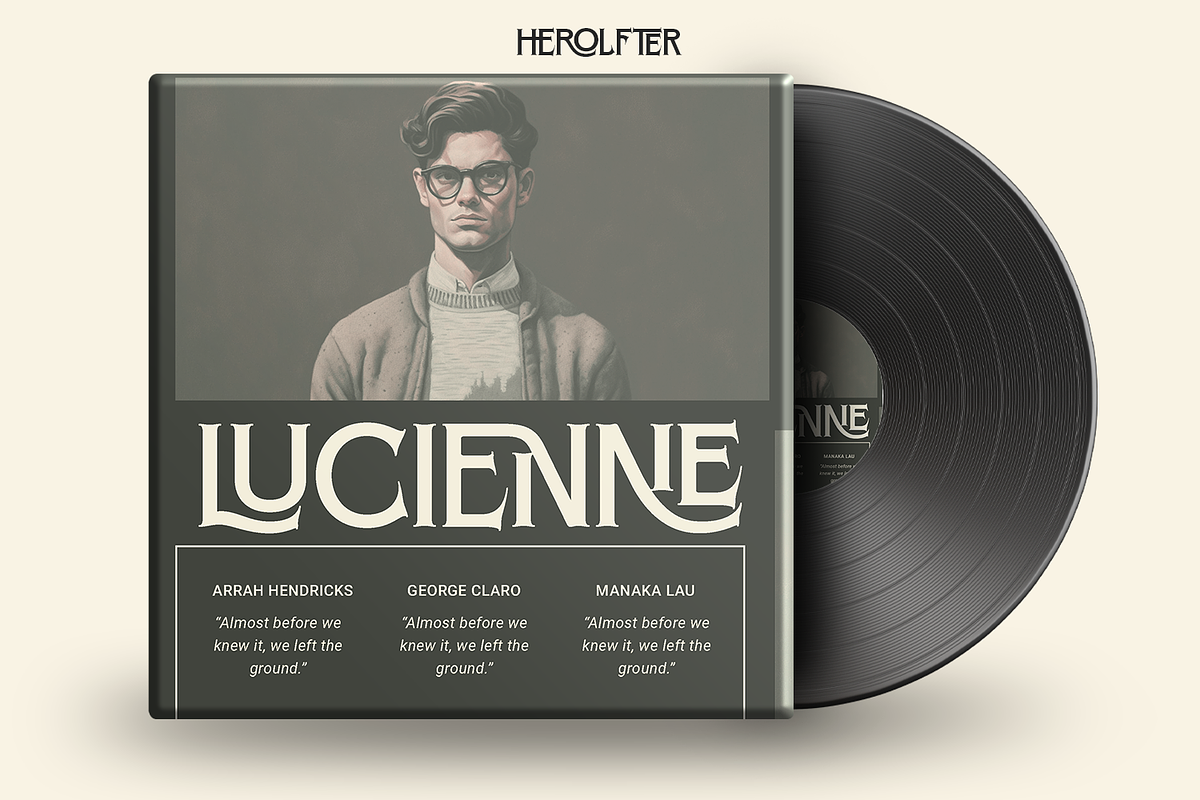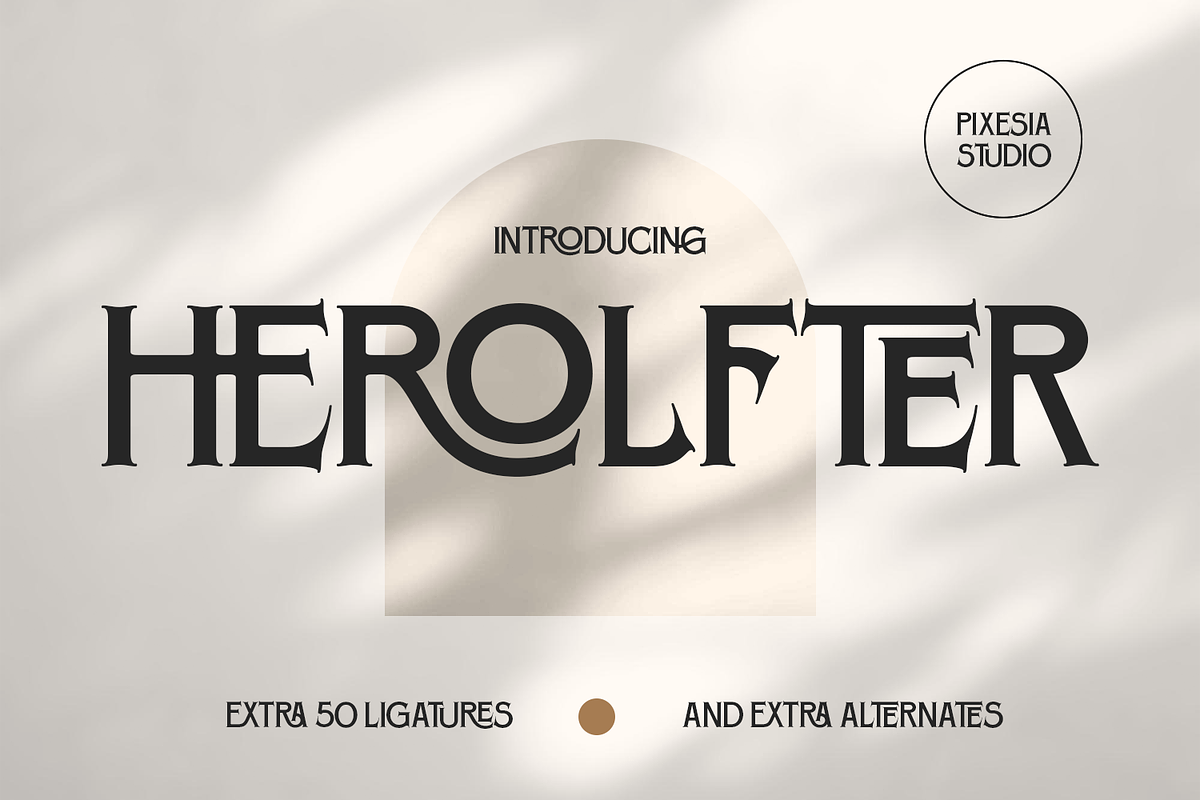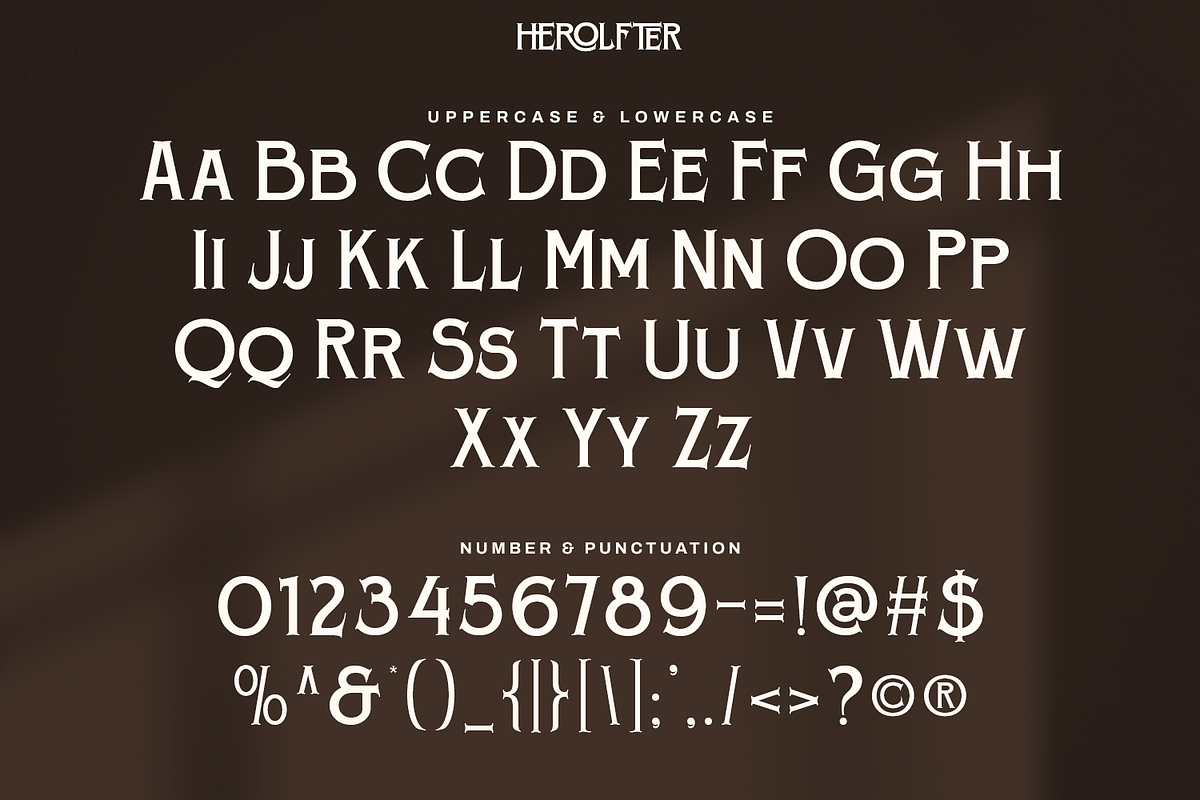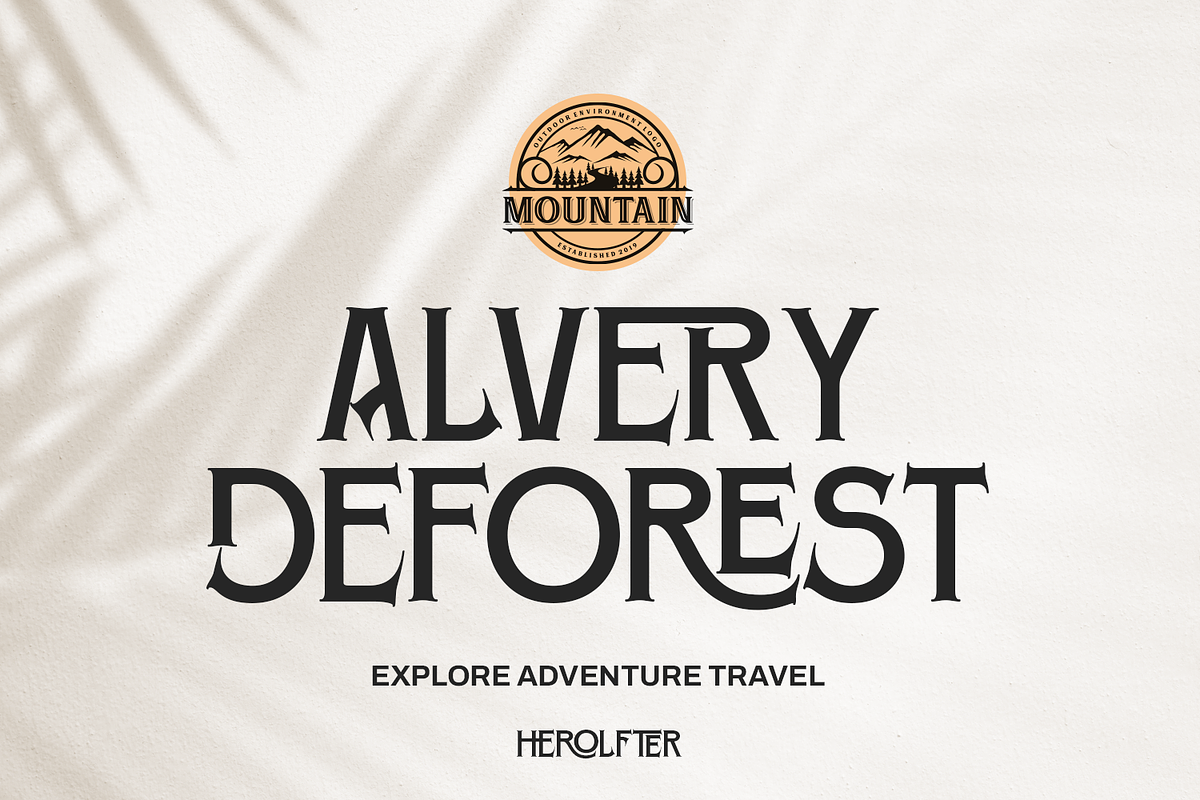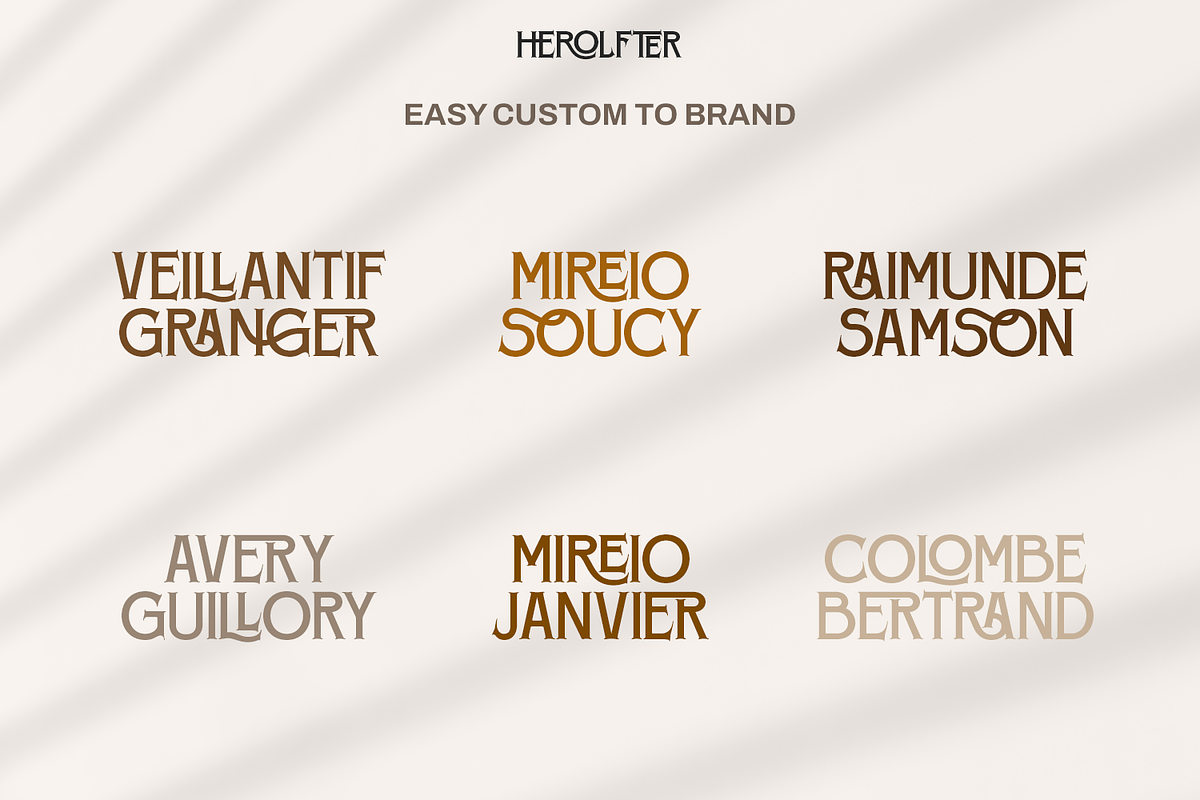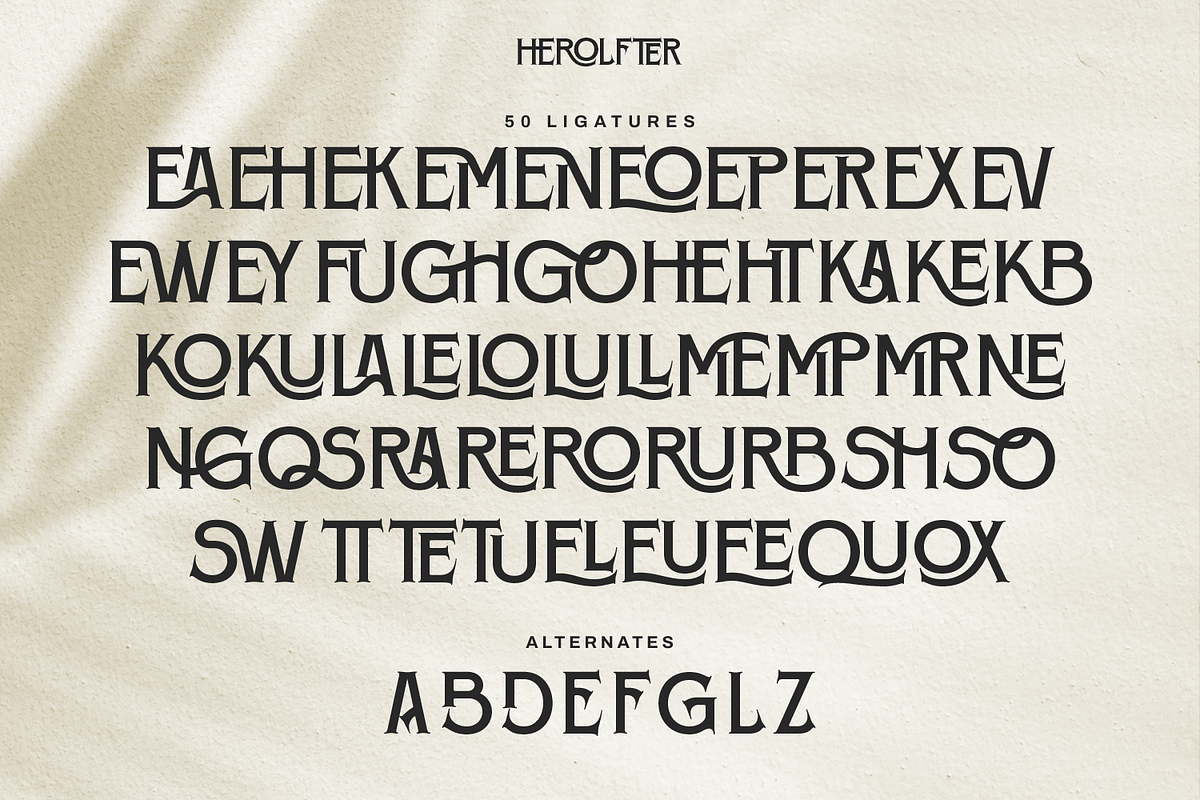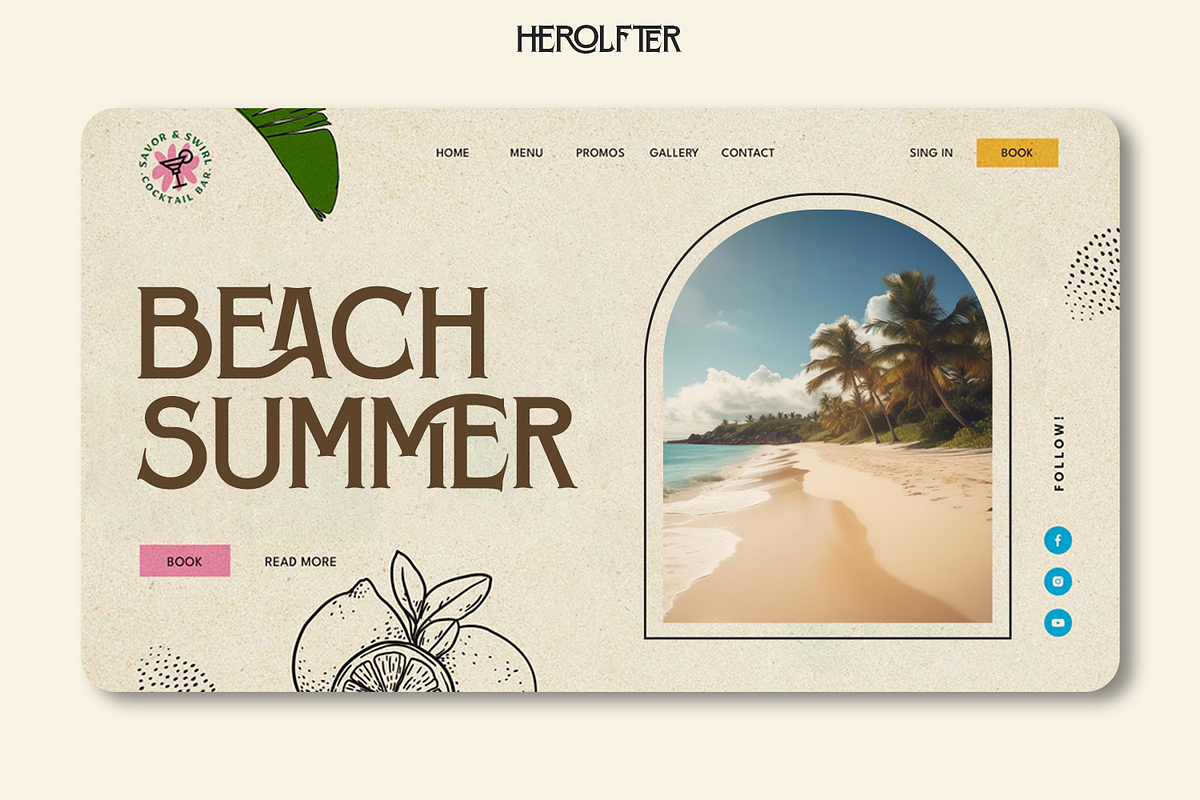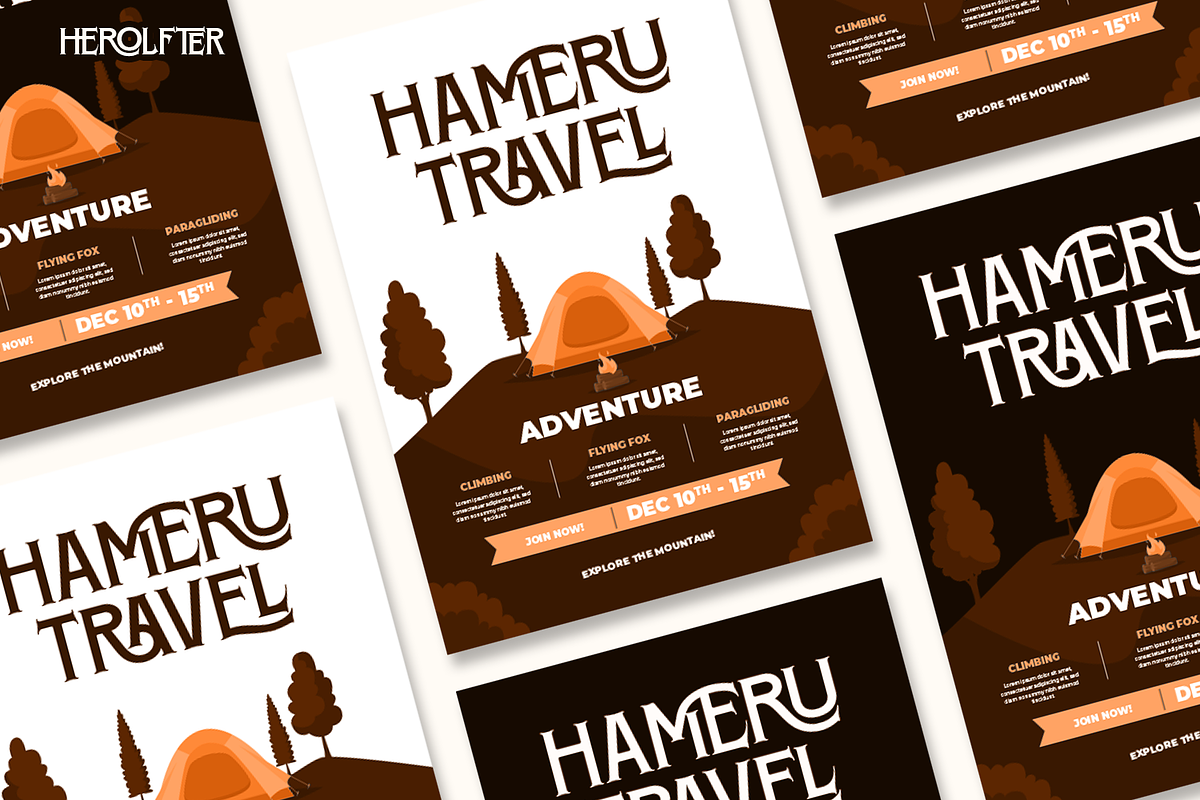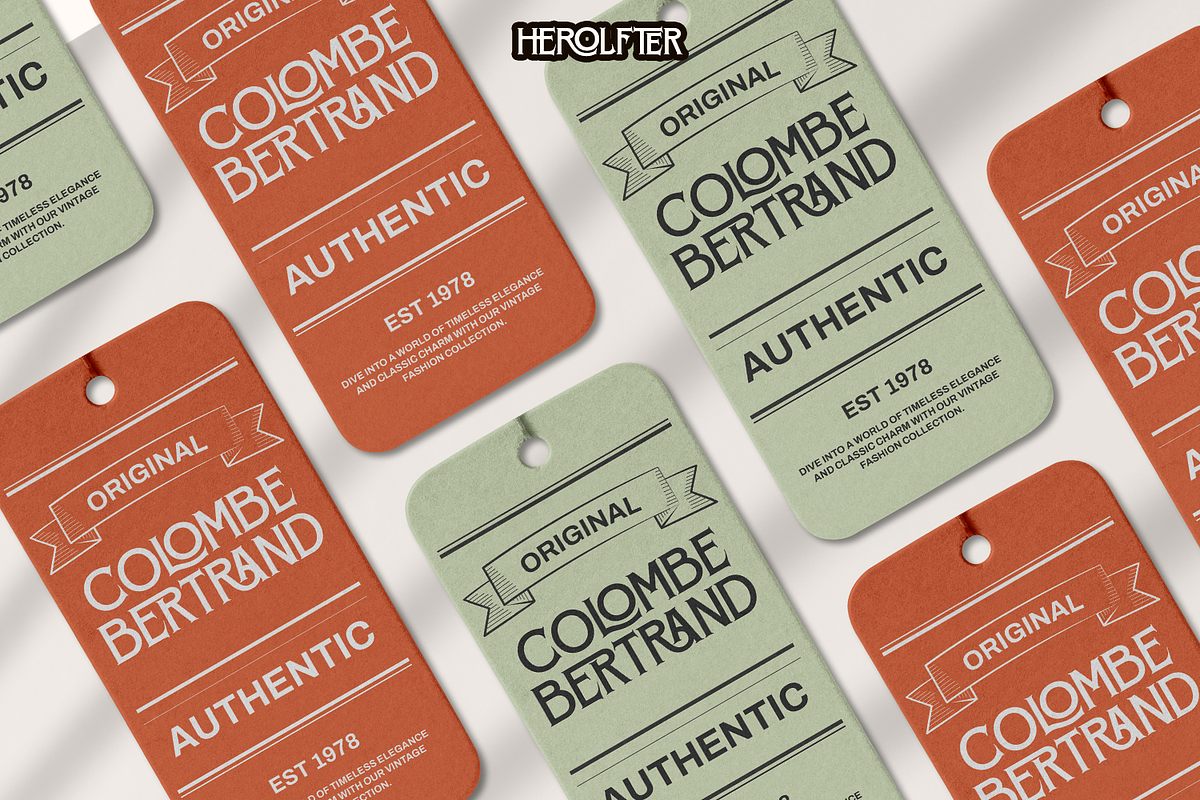
Herolfter - Modern Bold Display Font
Introducing Herolfter - Modern Bold Display Font
Herolfter, a sleek Bold Display Font with a modern edge. This versatile typeface boasts 55 ligatures, allowing you to add a unique touch to your designs.
Herolfter is perfectly suited for branding projects, logo, social media posts, advertisements, product packaging, product designs, label, photography, watermark, invitation, stationery and any projects seeking unique taste.
- All Caps with Small Caps